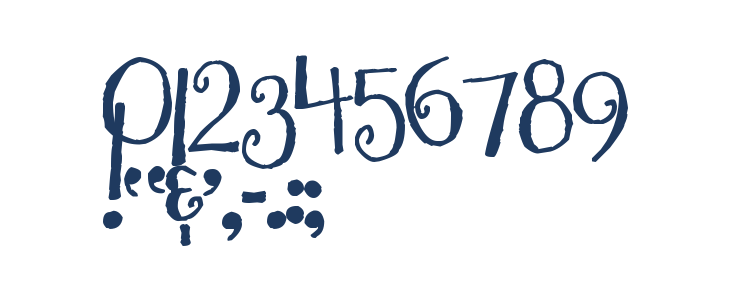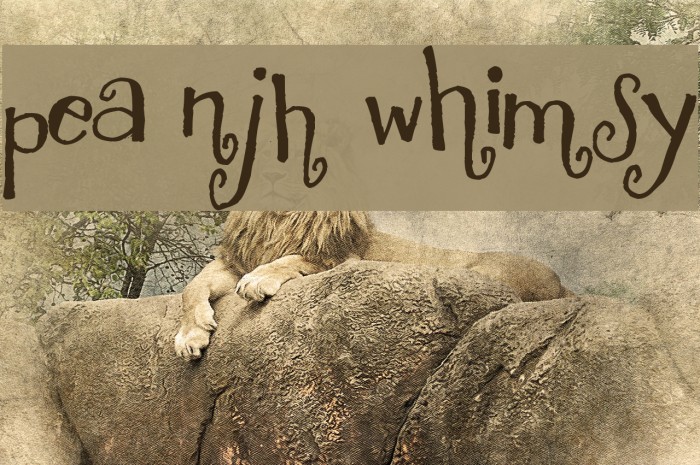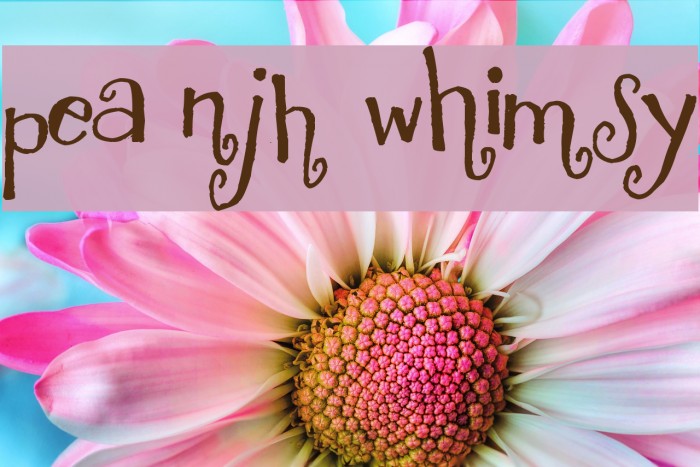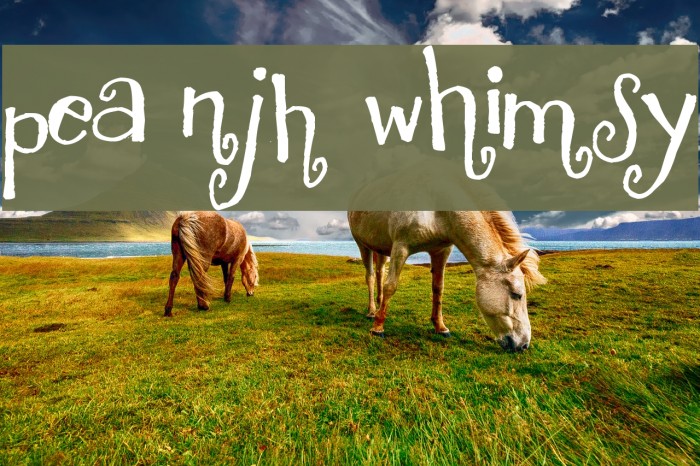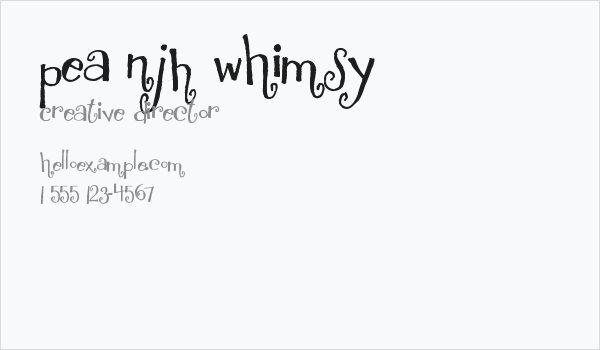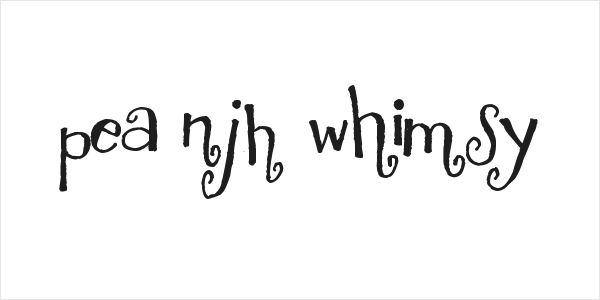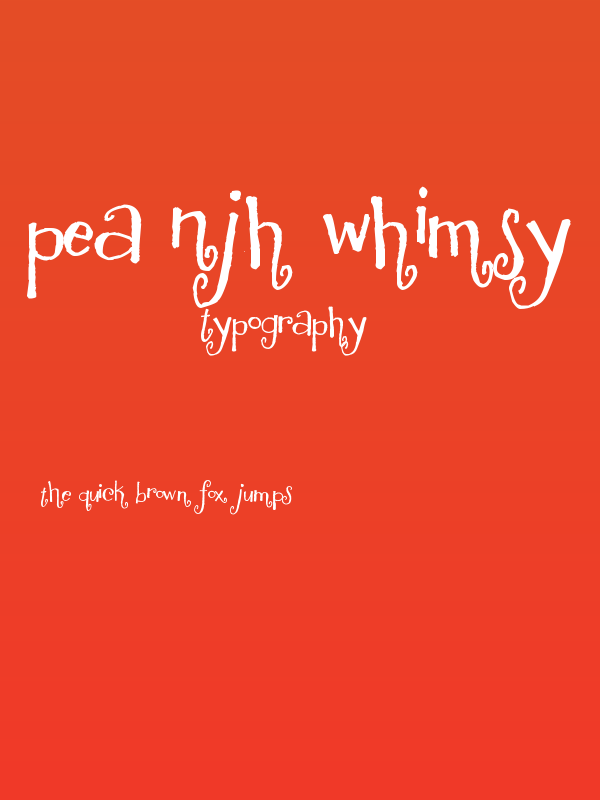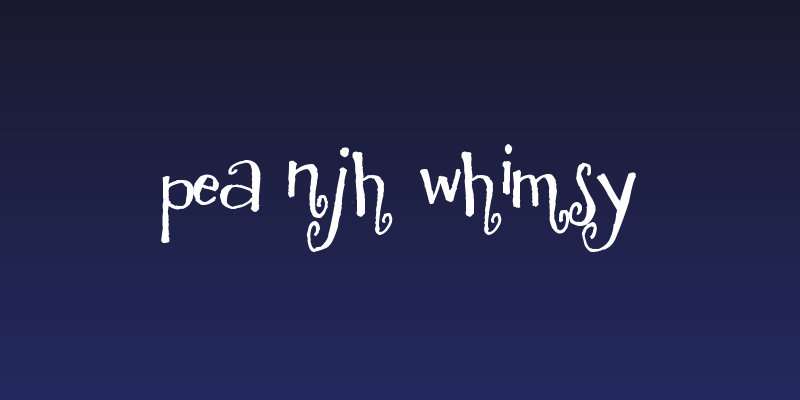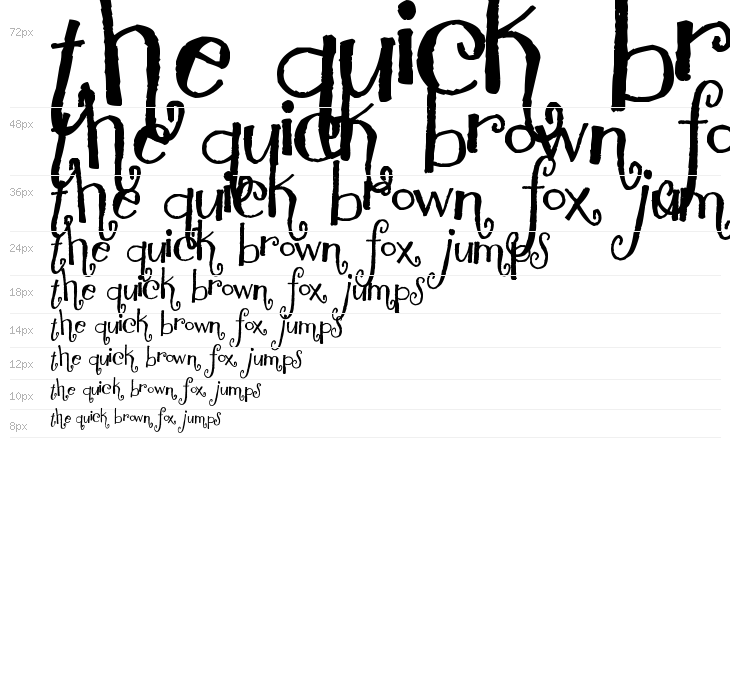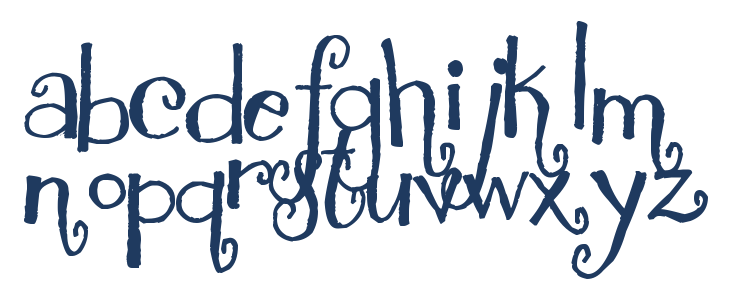
Pea NJH Whimsy Font
Pea NJH Whimsy Description
This whimsical font features playful, curly serifs and a hand-drawn aesthetic that gives it a unique, artistic flair. The characters are unevenly weighted, adding to the casual and informal feel. The uppercase and lowercase letters are distinct, with exaggerated loops and swirls that create a sense of movement and fun. Numbers and special characters maintain the same quirky style, making them suitable for creative projects. The overall appearance is lively and imaginative, perfect for designs that require a touch of personality and charm.
Use CaseLogos, Headlines, Creative projects
Proposed ProjectsIdeal for children's book covers, playful invitations, greeting cards, and creative branding projects.